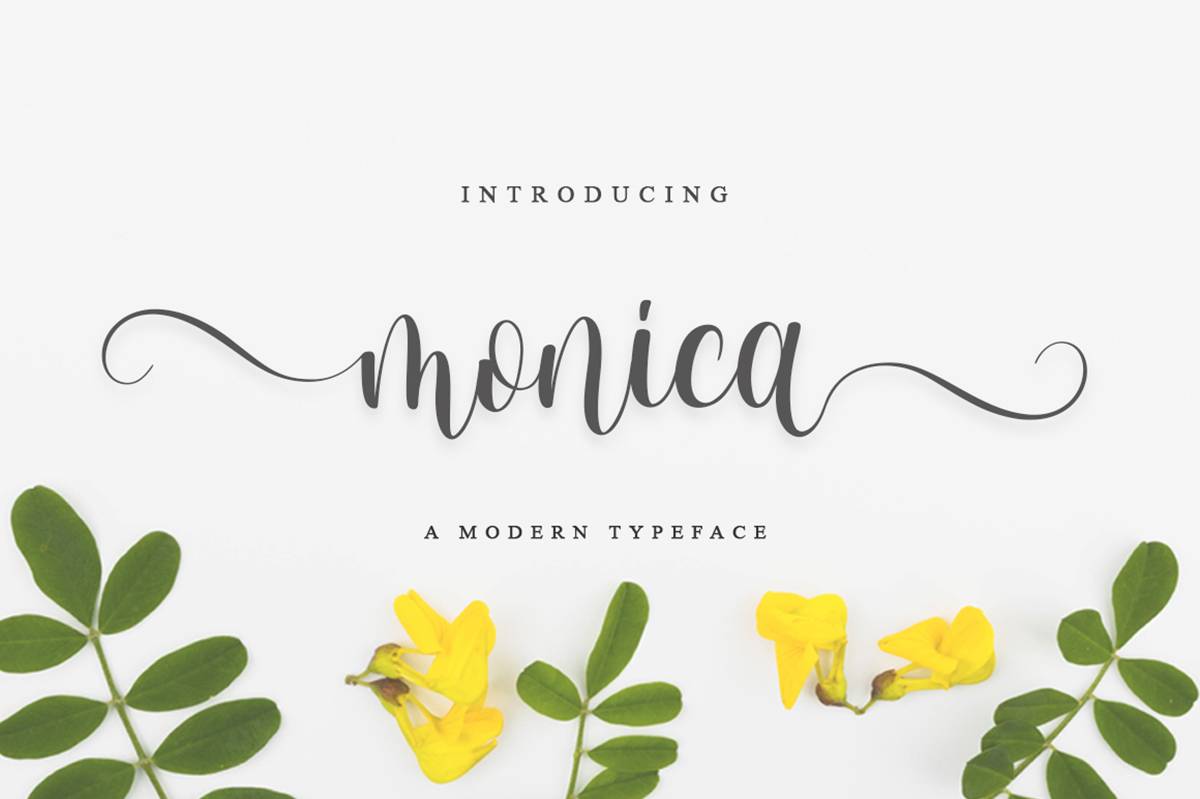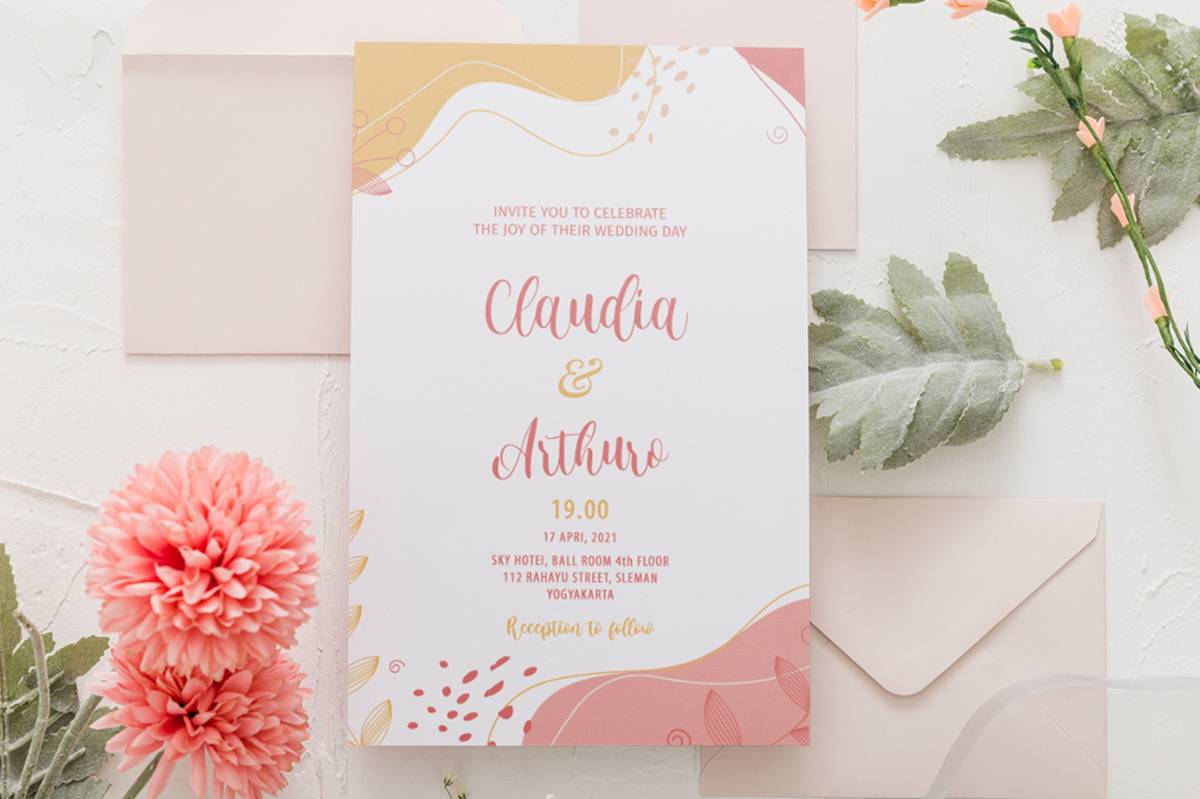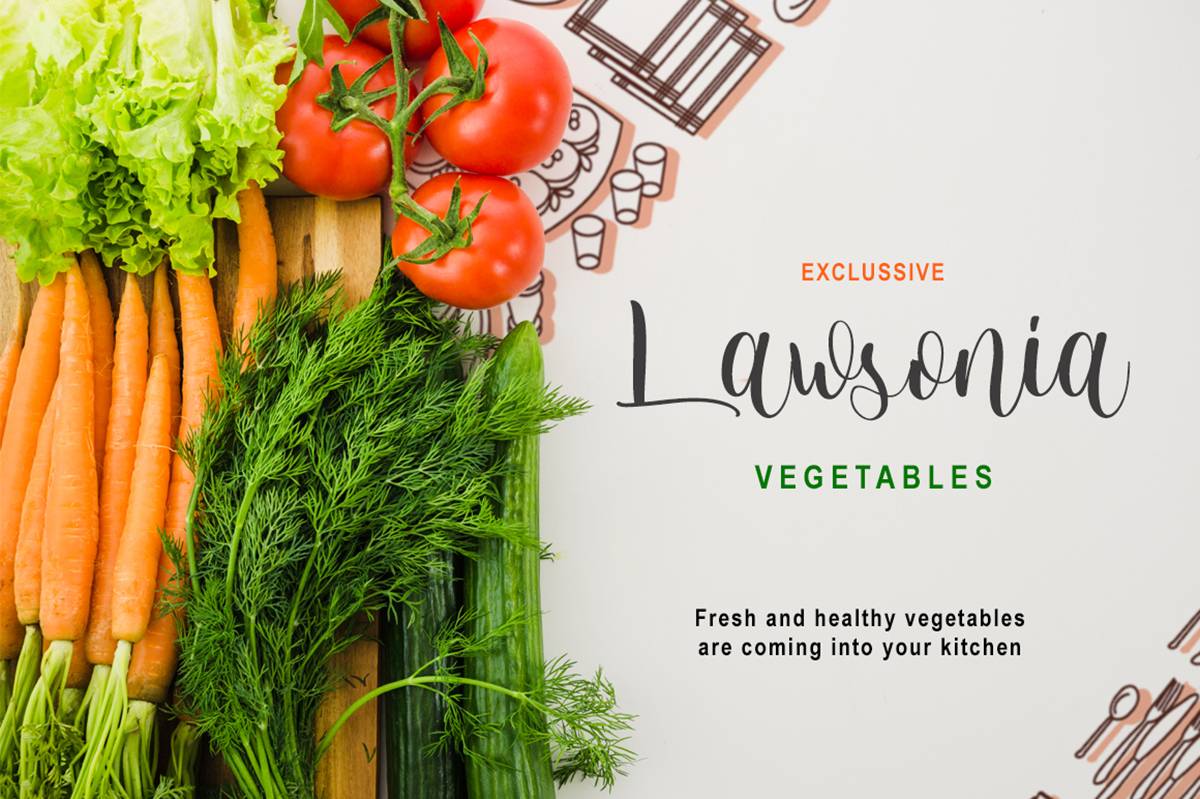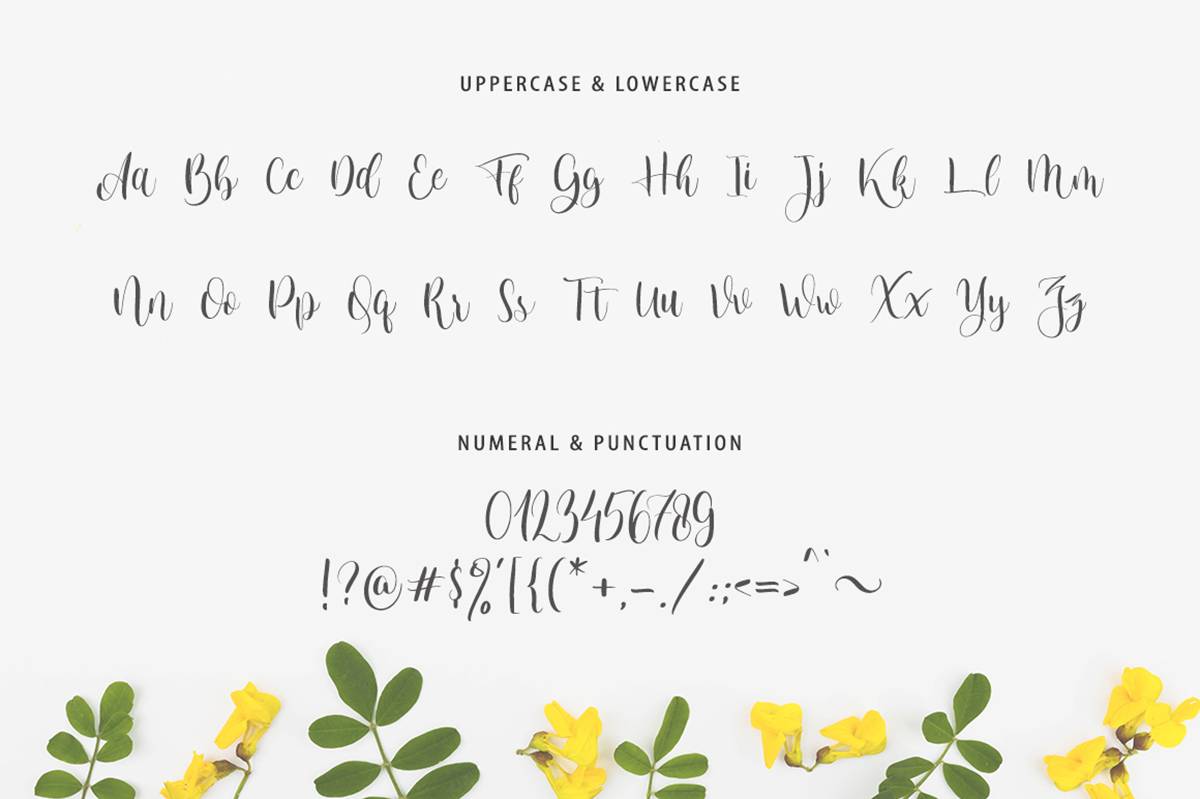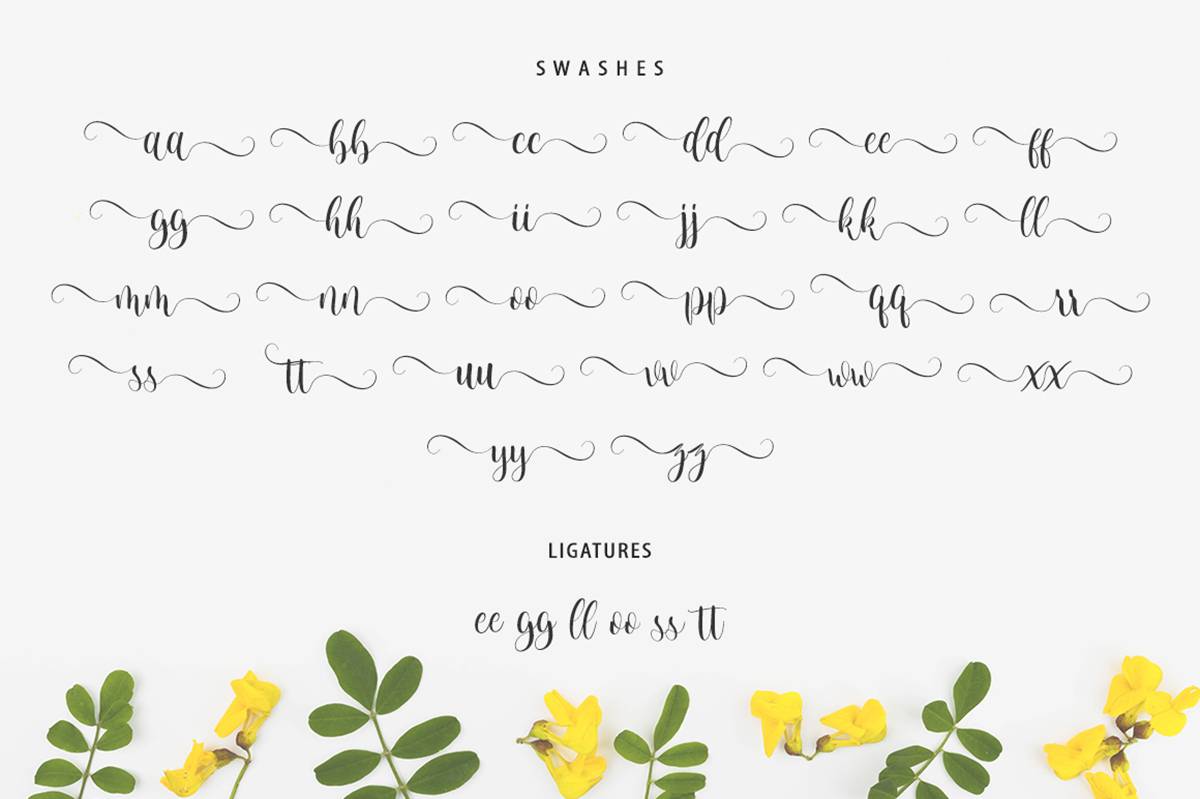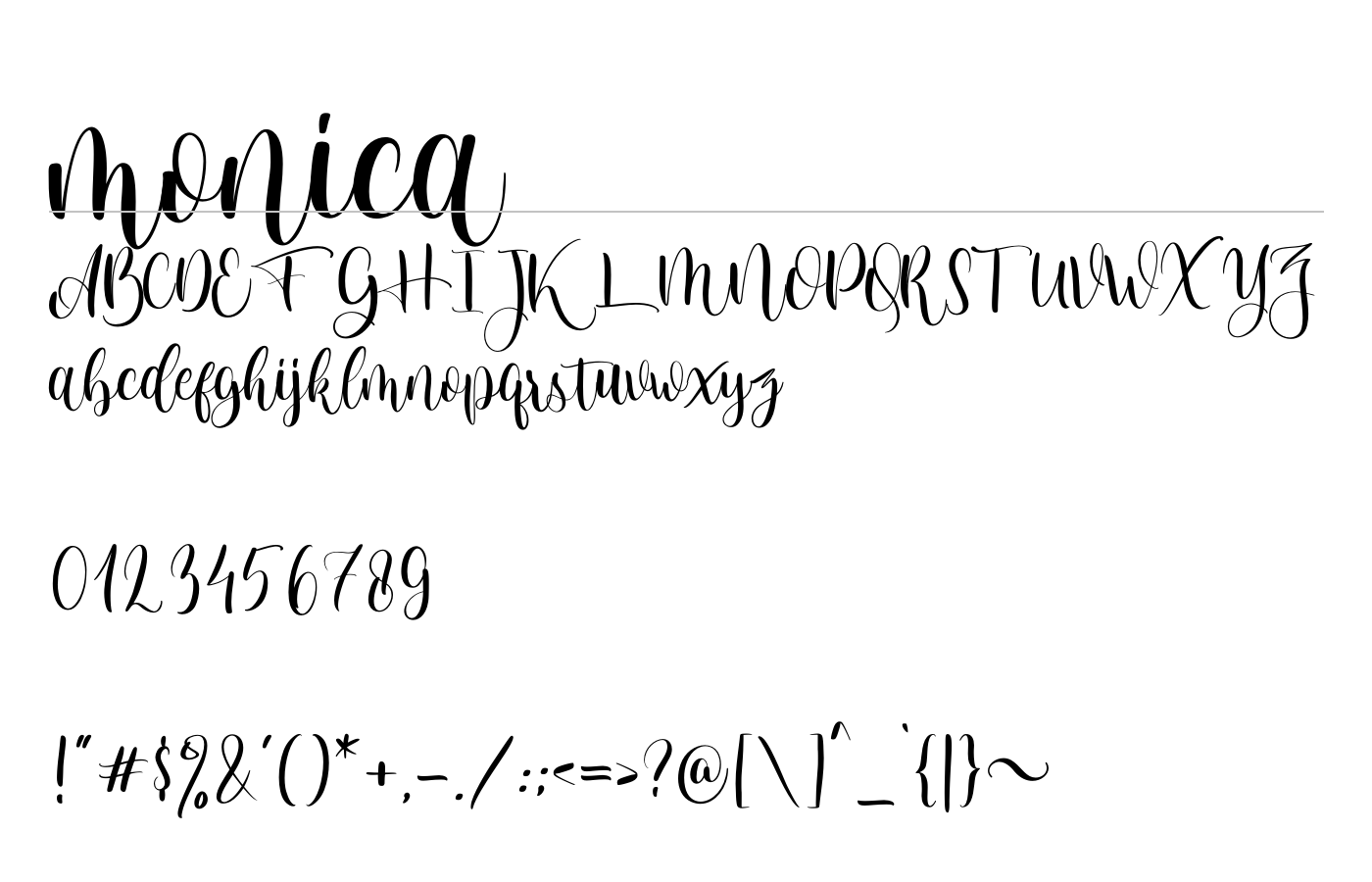
Monica Font is a stylish, handwritten script with a playful yet elegant feel, featuring fluid, high-contrast strokes and charming flourishes. Its tall, narrow letterforms and lively curves make it ideal for personal branding, invitations, and creative projects that seek a touch of sophistication and warmth. This font works beautifully for headlines and decorative uses where a distinctive, feminine flair is desired.
Monica Font
About Monica Font
| Font family | Monica Font |